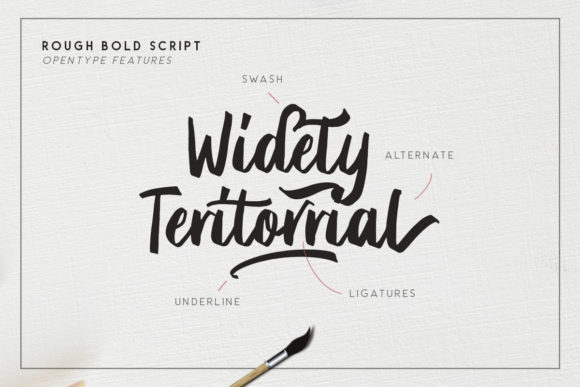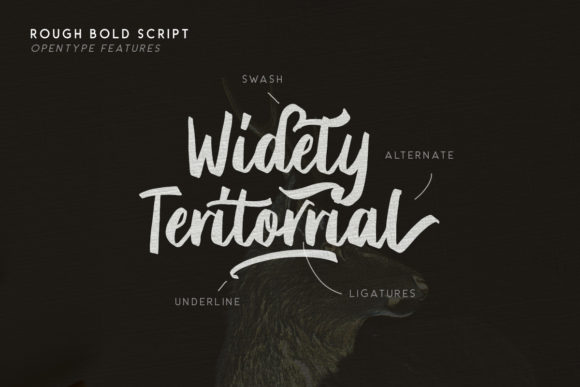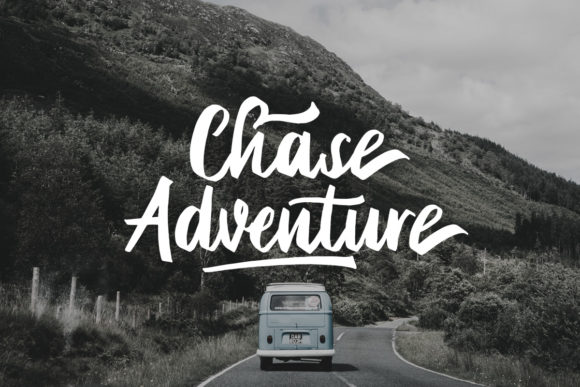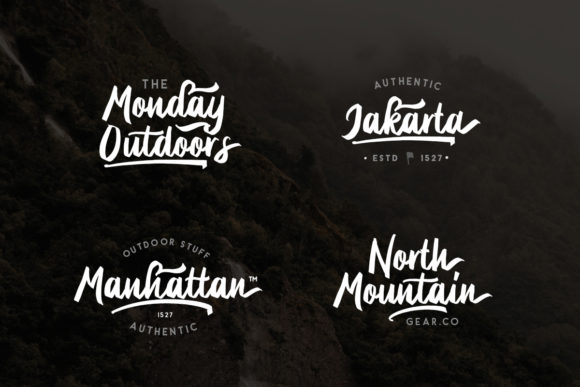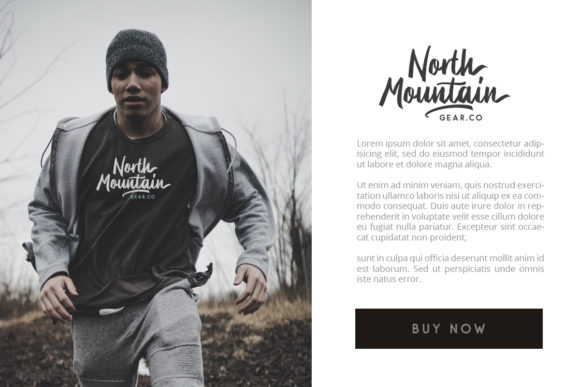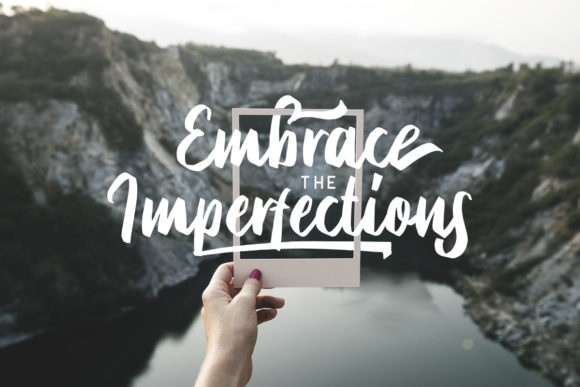
Unleash Your Creativity with the Briberra Script Font
Have you ever stumbled upon a font that makes your design jump off the page? For me, that moment came when I discovered the Briberra Script Font. It’s a game-changer for anyone looking to add a touch of personality to their work. This rough, bold script font is perfect for making your design stand out from the crowd.
Whether you’re designing a quote, creating a t-shirt, or crafting a poster, the Briberra Script Font is an excellent choice. Its striking style can add a unique touch to your work, making it truly memorable. As a designer, you’re always on the lookout for the perfect font to elevate your designs. The Briberra Script Font is a valuable addition to any design toolkit.
- Font Style: Handwritten Script Font with a natural, elegant feel.
- Unique Characteristics: Distinctive swashes and flourishes, along with subtle irregularities that give it a genuine handwritten feel.
I recently had the chance to work with the Briberra Script Font, and I must say, it’s a unique and stylish addition to any design project. ✨ The flowing curves and elegant feel make it perfect for creating a luxurious or vintage vibe.
- The Briberra Script Font is ideal for heading and titles, as it grabs the reader’s attention and adds a touch of sophistication.
- The script font’s versatility allows it to be used in various contexts, from fashion and beauty to weddings and special events.
- The font’s ligatures add an extra layer of elegance and make it perfect for fine typography.
- The font may be too ornate for some designs, making it difficult to read in certain situations.
- The Briberra Script Font is not ideal for large blocks of text, as it can become overwhelming and lose its impact.
- The font may require some adjustments in font size and line spacing to achieve the desired effect.
Overall, the Briberra Script Font is a beautiful and eye-catching addition to any design project. While it may have some limitations, its unique style and versatility make it a great choice for the right projects.
- Use Briberra Script for titles and headings to add a touch of elegance to your designs.
- Combine Briberra Script with other fonts to create a unique and eye-catching look.